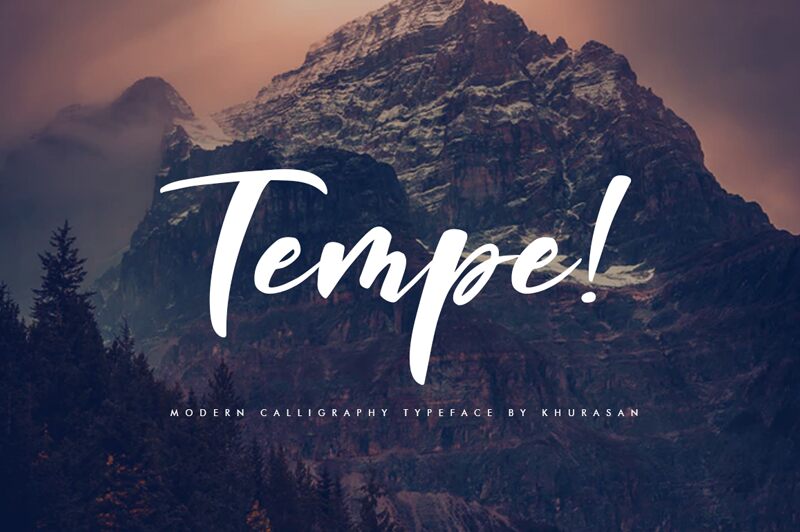
Tempe font family by Khurasan is a showcase of elegance and modern calligraphic style. This free font family includes 2 font styles that embody fluidity, sophistication, and a dynamic artistic presence. Tempe brings together contemporary aesthetic with expressive strokes to create a visually appealing and unique character best suited for impactful design projects. Its calligraphic influence channels the traditional artistry into a modern tool for creative endeavors.
Tempe is a great choice for branding, packaging, posters, signages, publications, magazines, websites, and social media visuals. Fit the distinctive and remarkable free font in advertising, book covers, and product labeling. Use Tempe in various digital or print scenarios to profit from its unique character.